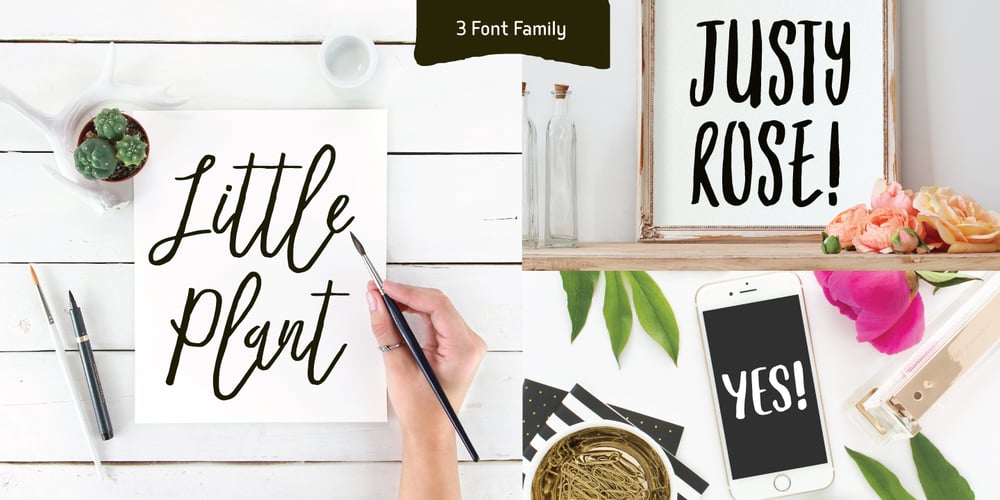
Mates Malty Font Family was designed by Chatnarong Jingsuphatada and published by Typesketchbook. Mates Malty contains 8 styles and family package options. Mates Malty was created by mixing different styles of hand writing fonts that derived from various tools such as painting brushes, markers and inkpen in order to develop a new and diverse font styles. We also keep incomplete details and uneven textures that resulted from the writing process. We provide various font styles to help you mix and mach them to suit your creative work harmoniously.